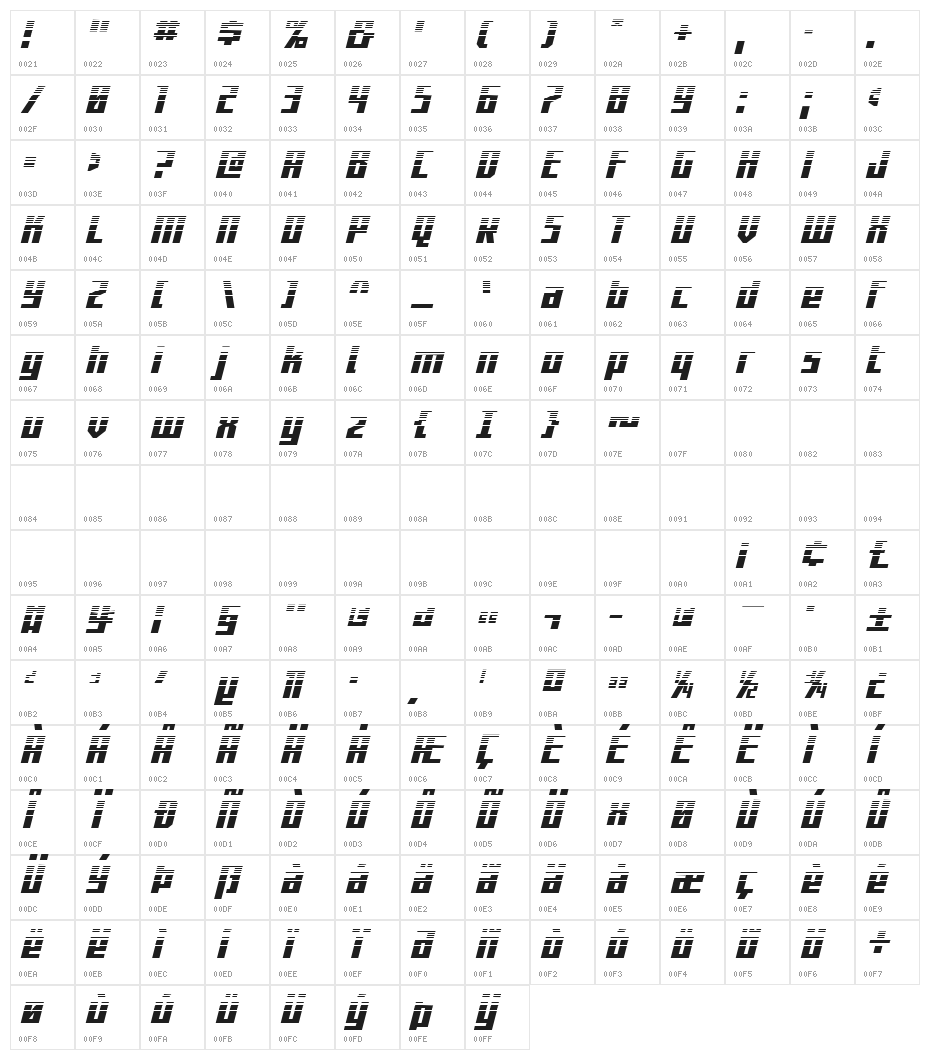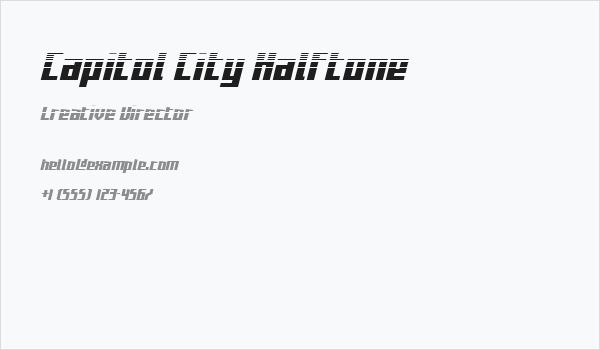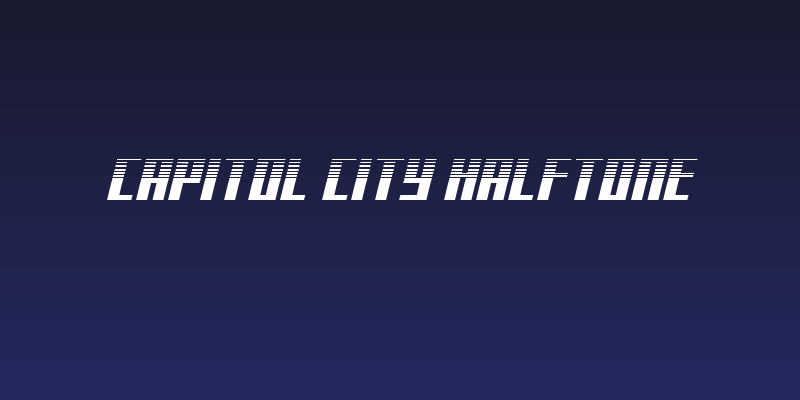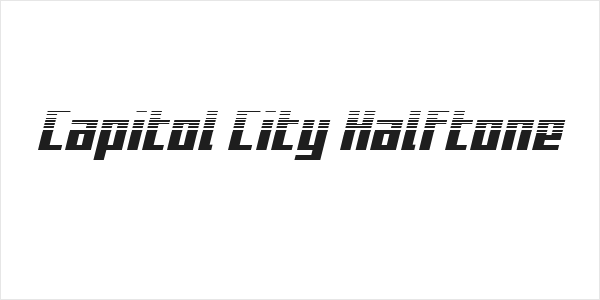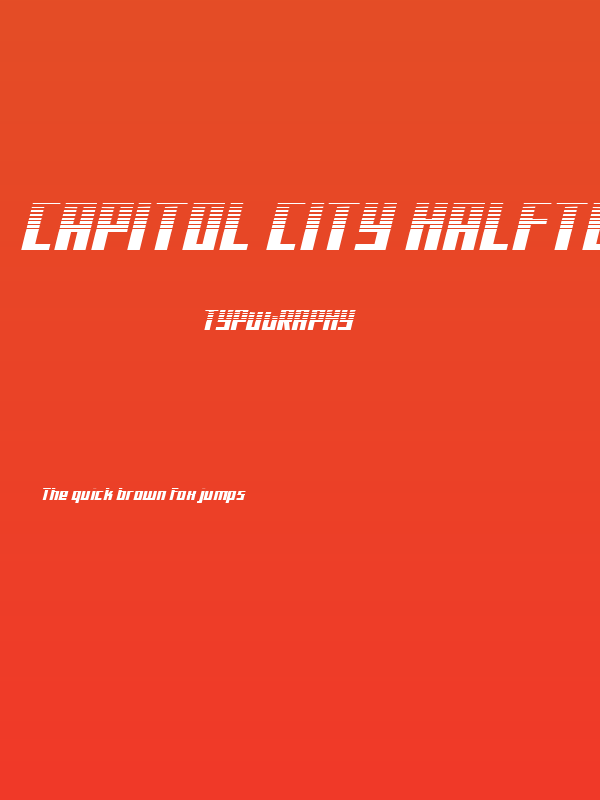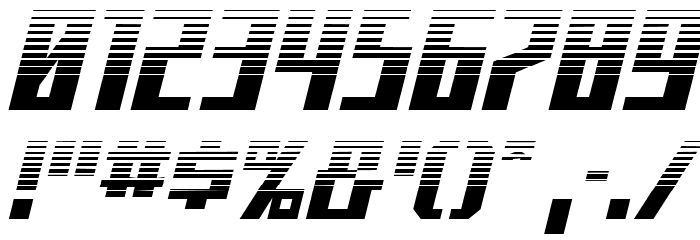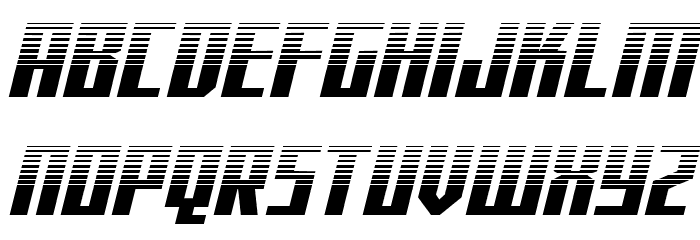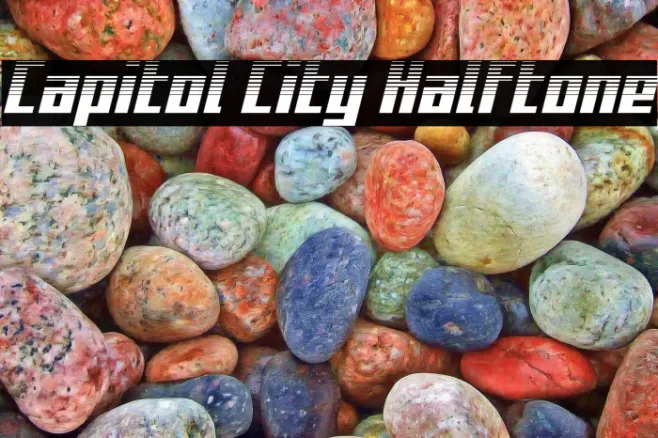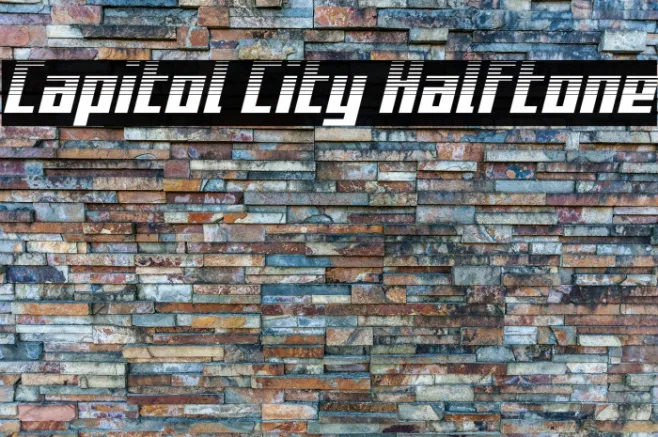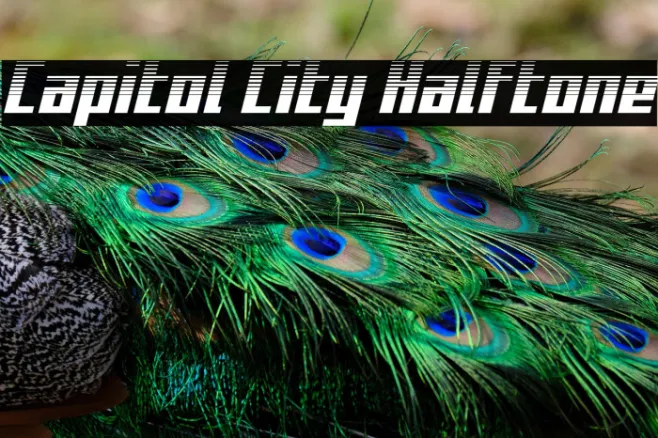
Capitol City Halftone Font
| Vorgeschlagene Projekte | Ideal for posters, album covers, sports branding, and any project requiring a modern, energetic look. |